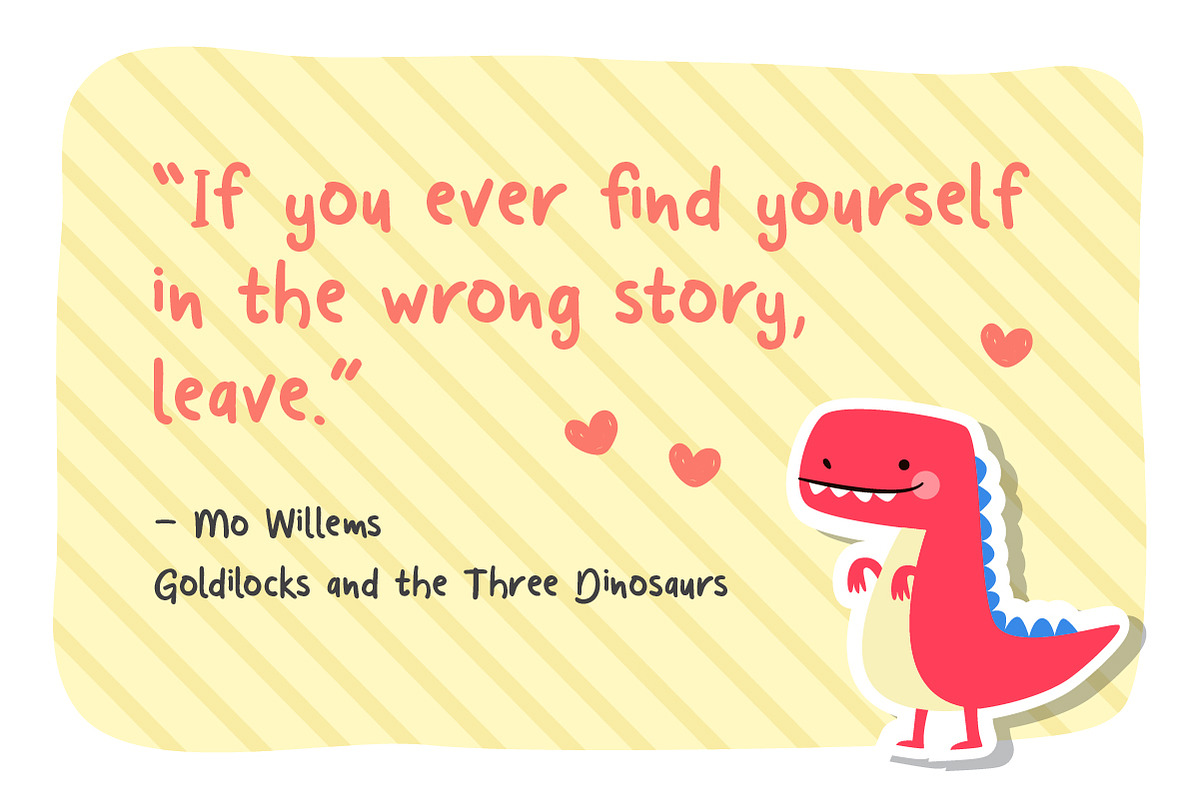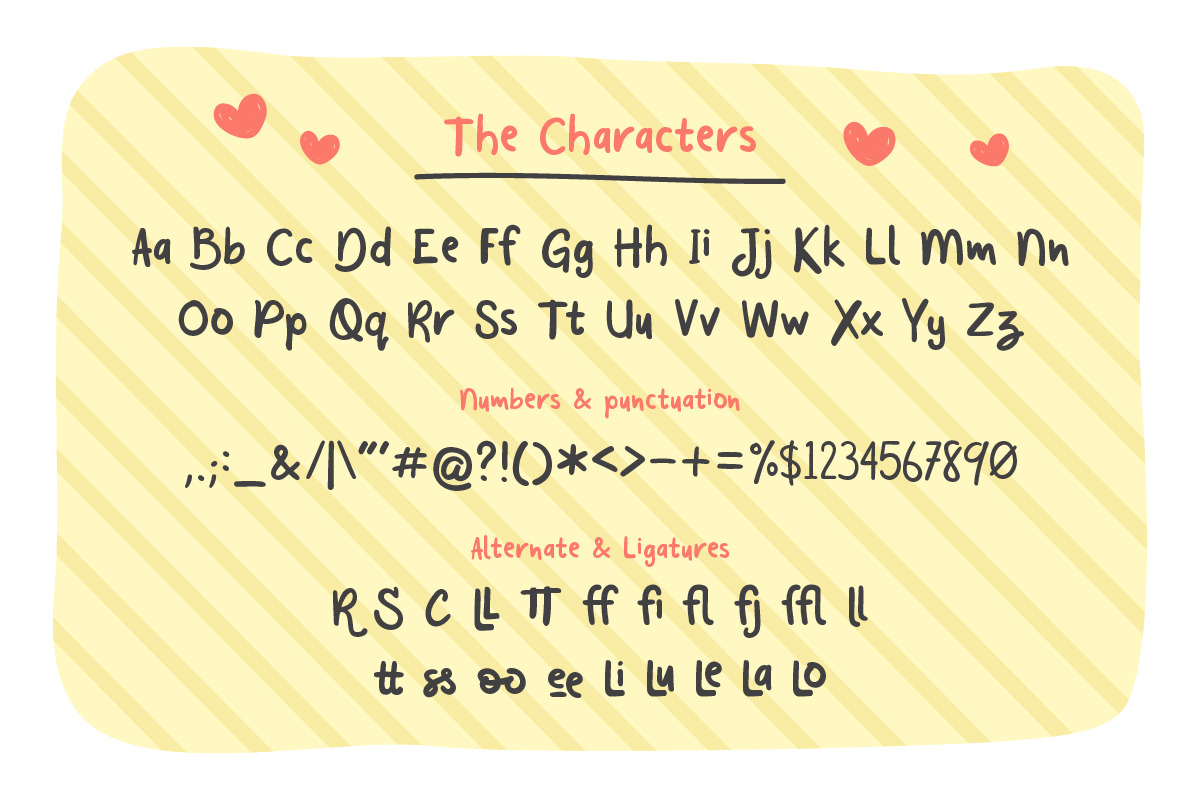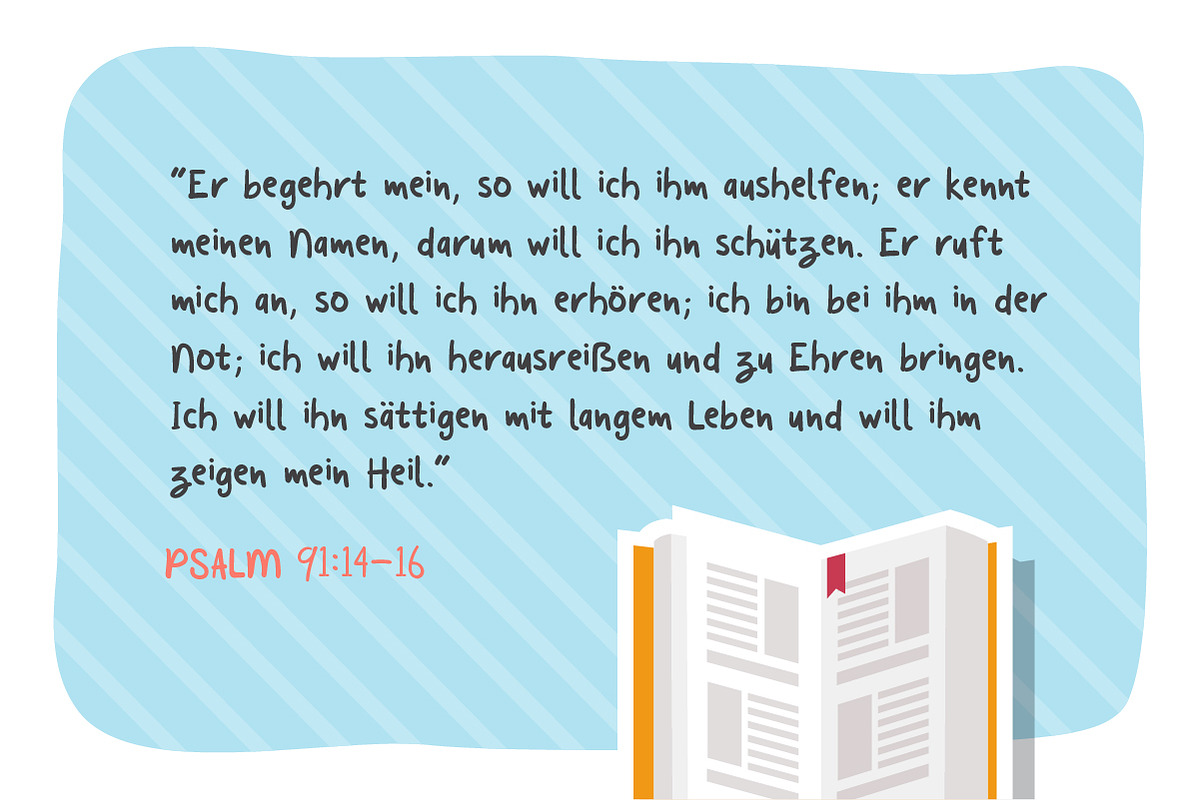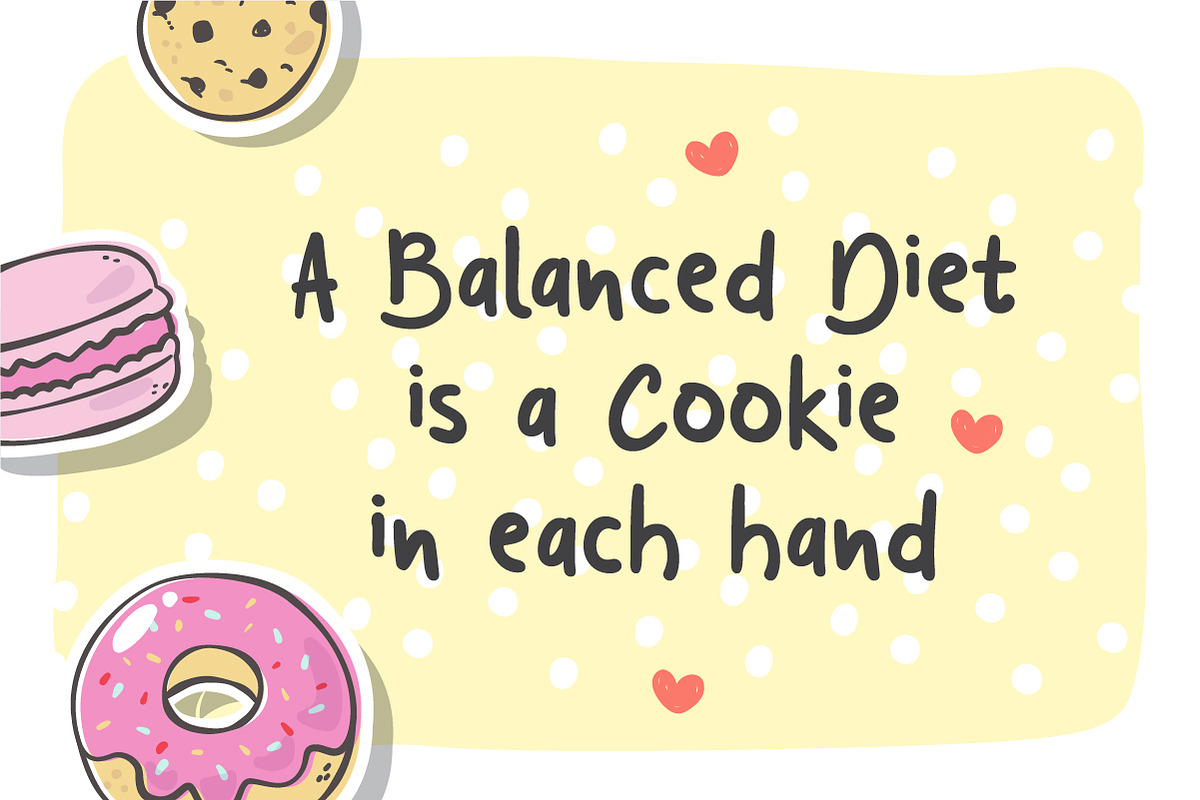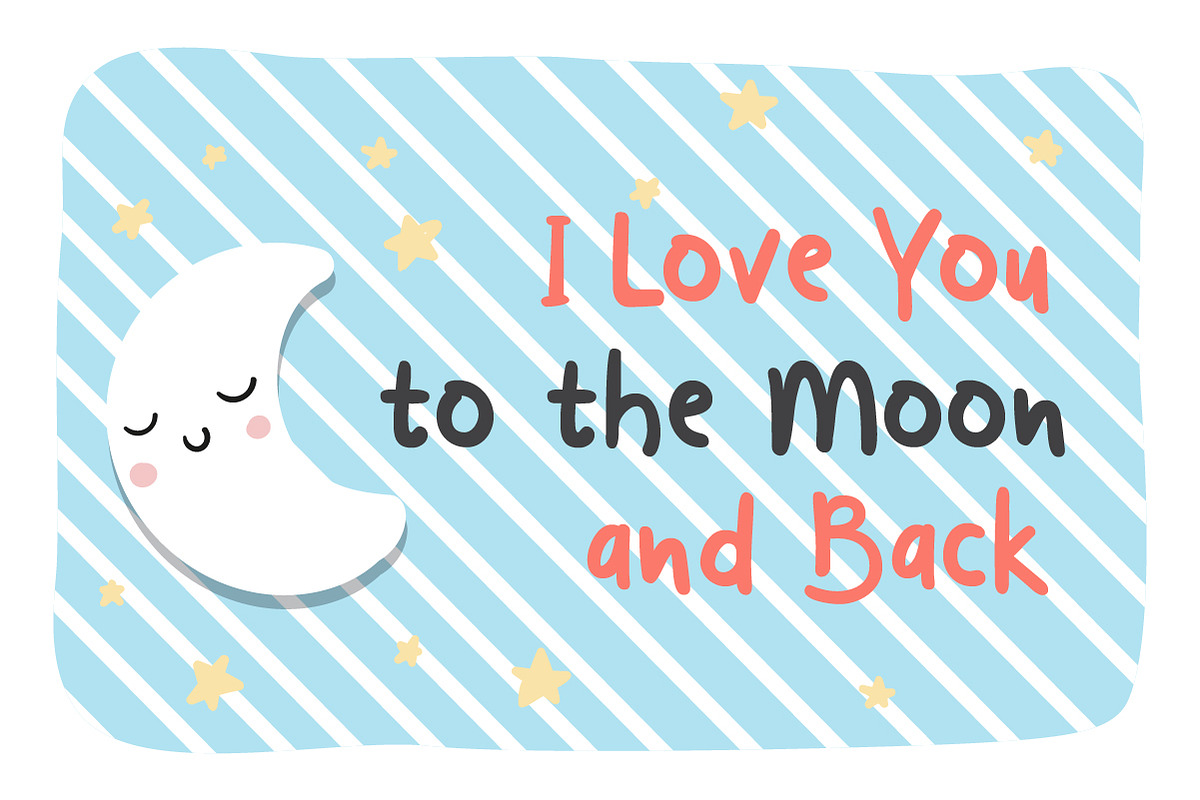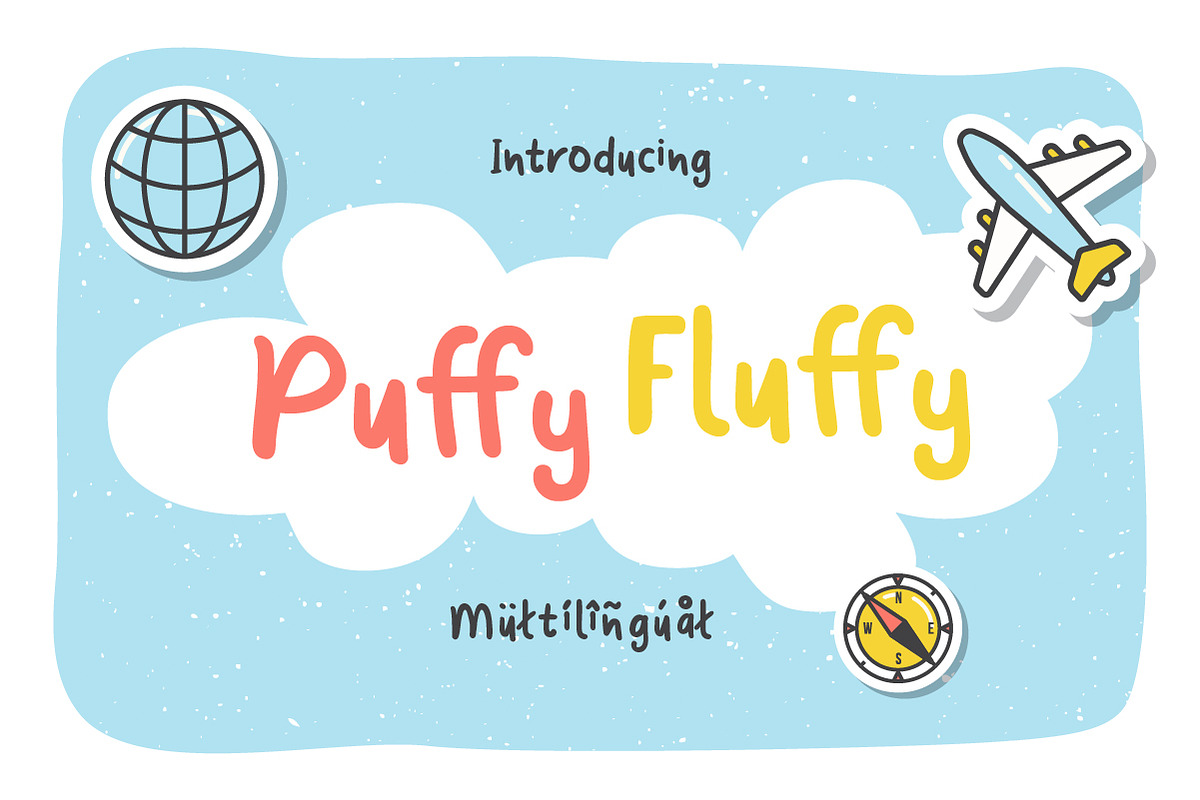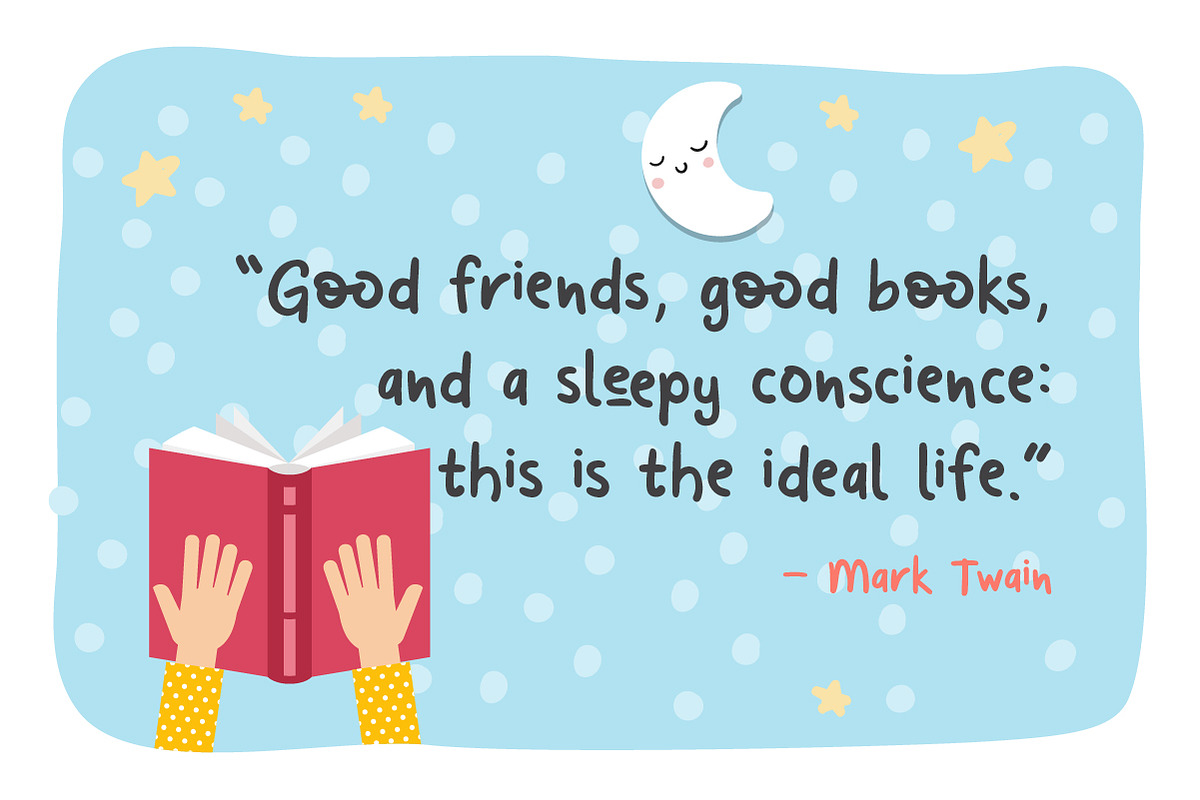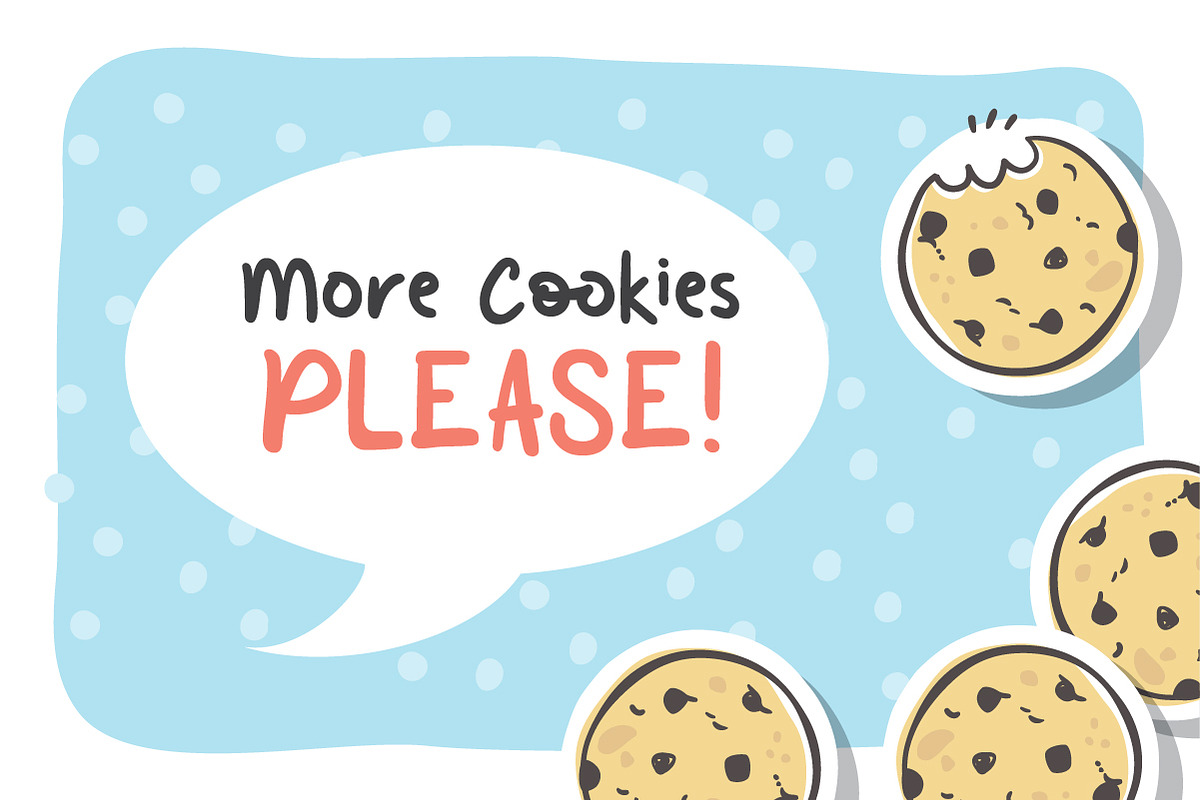
Puffy Fluffy
Introducing Puffy Fluffy
Updated : Multilanguage, refine the 'O' shape and add more ligatures.
Puffy Fluffy is a casual handwritting typeface. This handmade monoline brush-strokes create a fun casual doodle typeface. This typeface can add more fun and happiness in your design. This typeface can be perfect for your greeting cards, birthday invitations, and event for a storybook, poster, quotes, etc..
Font features:
- Uppercase, lowercase, numeral & punctuation, also some alternate characters & ligatures.
- Support multilanguage.